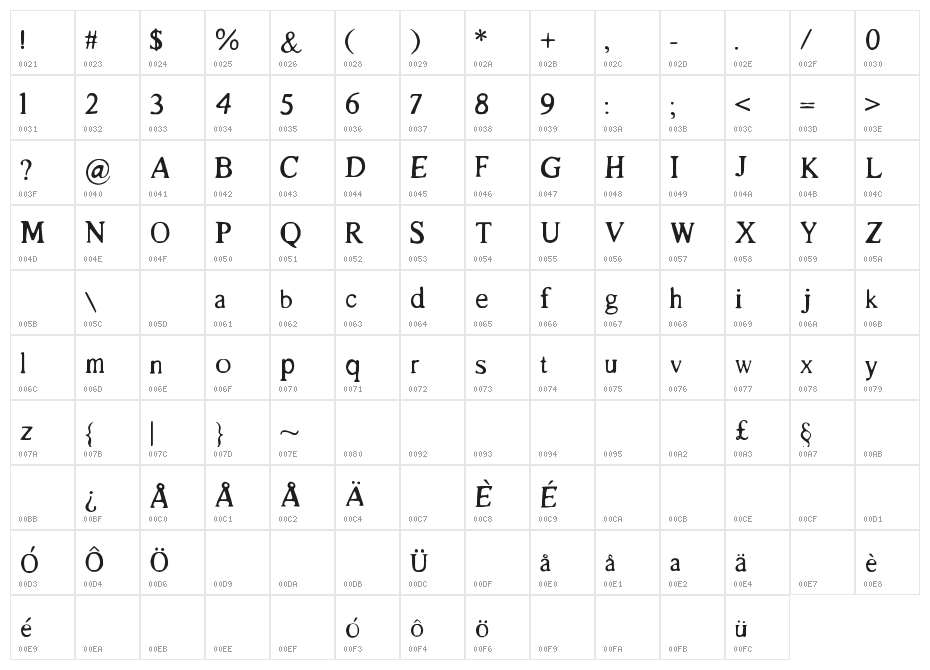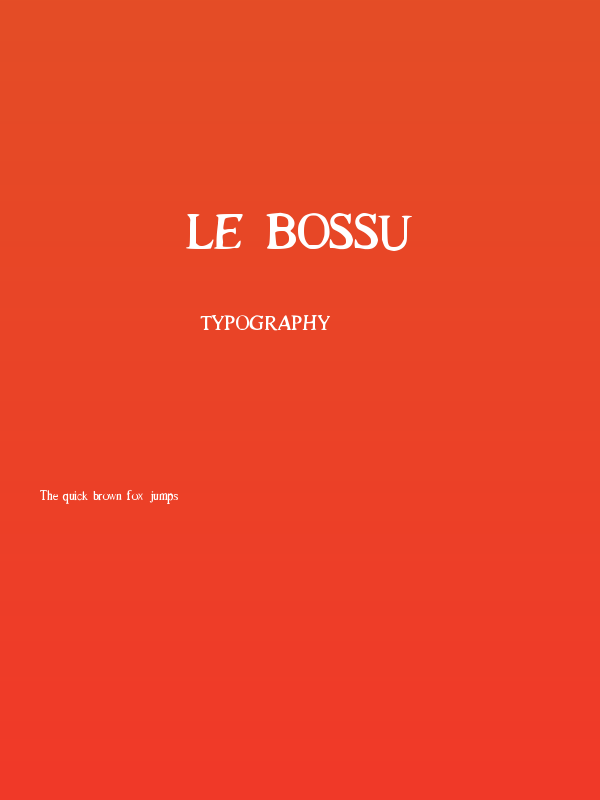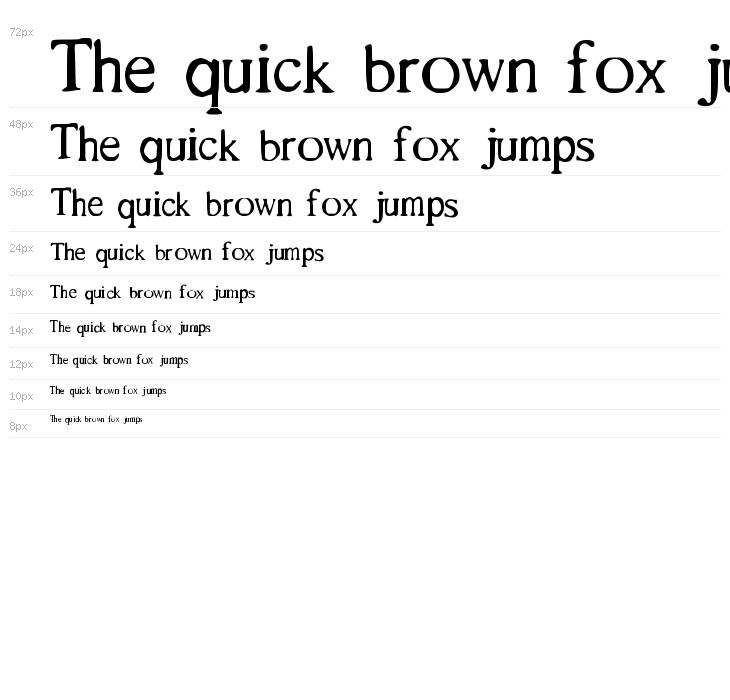
Le_Bossu Font
Le_Bossu Description
This font features a distinctive and bold style with a strong presence. The uppercase letters are characterized by their slightly uneven, hand-drawn appearance, giving them a unique and artistic flair. The lowercase letters maintain this handcrafted look, with some characters exhibiting playful curves and angles. The numerals are consistent with the overall style, offering a clear yet artistic representation. Special characters are designed to match the font's aesthetic, ensuring a cohesive look across all glyphs. This font's bold strokes and artistic design make it stand out, ideal for projects that require a touch of creativity and individuality.
| Overall Style | Artistic |
| Proposed Projects | Ideal for book covers, posters, branding, and any project needing an artistic touch. |